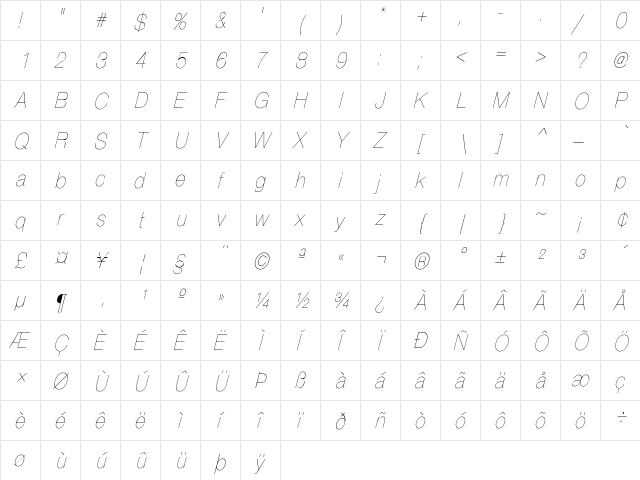
HelveticaCndObl-Thin Regular Font Preview
HelveticaCndObl-Thin Regular
Design Context for HelveticaCndObl-Thin Typeface
HelveticaCndObl-Thin takes a measured approach to typography — its balanced proportions and neutral character make it a reliable workhorse for both digital and print work. The delicate stroke weight brings airiness and refinement to layouts.
Pro Tip: Use HelveticaCndObl-Thin in both headline and body roles to test its range before committing to a single application.